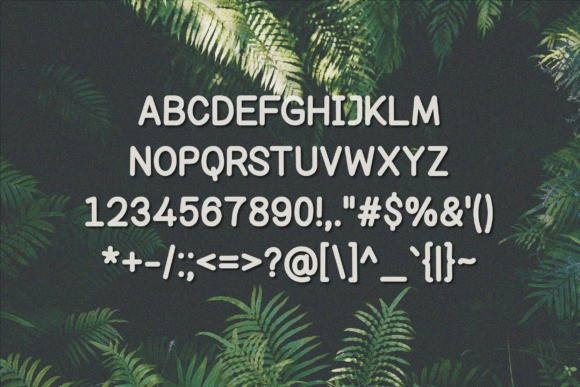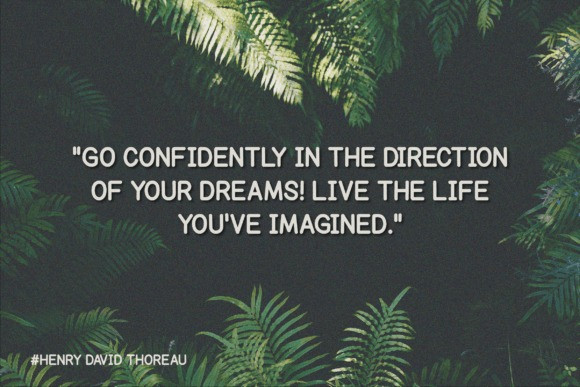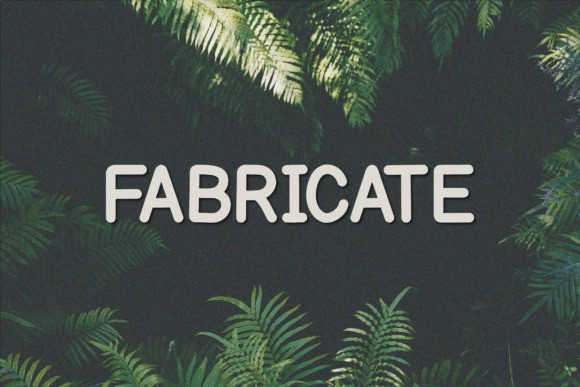
Fabricate Font
Fabricate Display Font is a quirky all caps font made up of capital letters A-Z, numbers 0-9, accented characters and punctuation. This font is perfect for social media or crafty projects. Simple and smooth perfect for crafting, t-shirts, decals, cards, invitations and so much more.